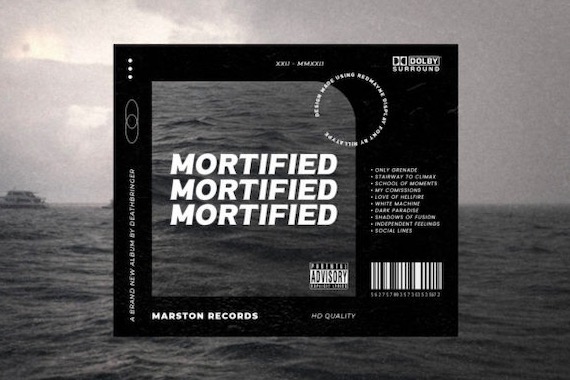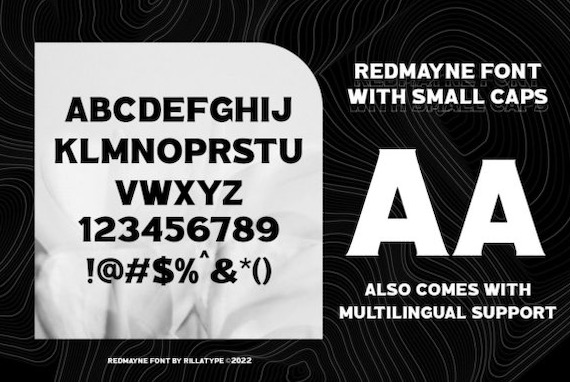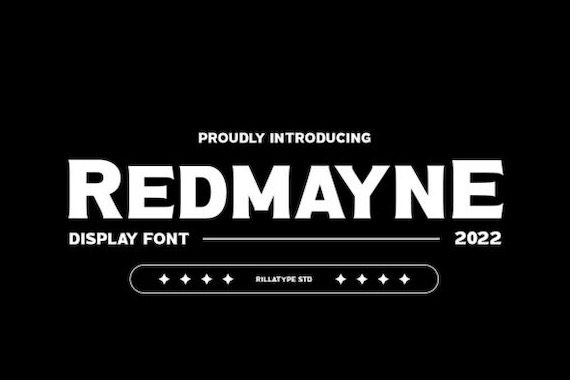
Redmayne is an elegant and modern display font that was designed and shared by Rillatype Studio along with strong and powerful feels that will bring a strong & big feel to your project and make your design pop eyecatching even more! Redmayne is perfect for branding, packaging, logo design, headline, and many more.
Redmayne Display Font